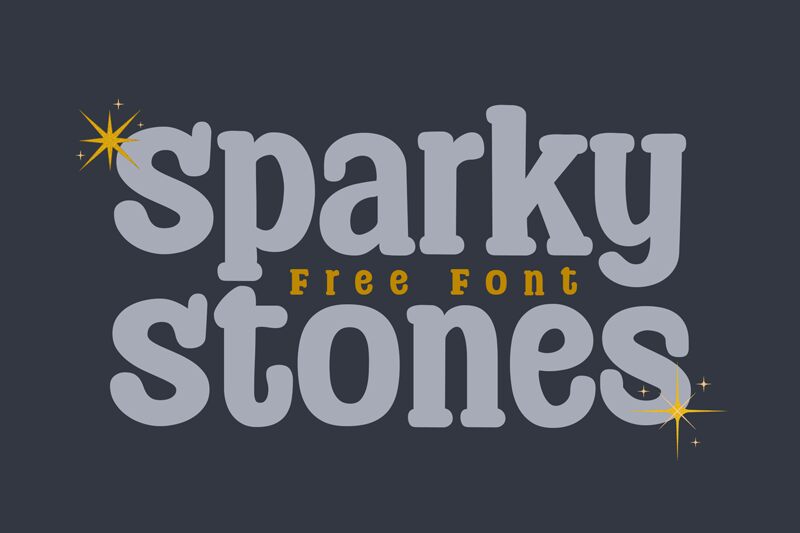
Sparky Stones Regular
Sparky Stones font by Niskala Huruf is a playful display font designed in rounded shapes. This friendly and approachable typeface presents itself like a hand-drawn work with a playful softness meant to impress and delight the reader. With this free font, you’ll have both a fully professional tool and a bunch of fun in your creative process.
Classic use cases include posters, magazine covers & inner pages, quotes, YouTube thumbnails, product packaging or labels (mostly food), drink labels (especially juice), apparel design & tags, stationery items such as notebooks & calendars.